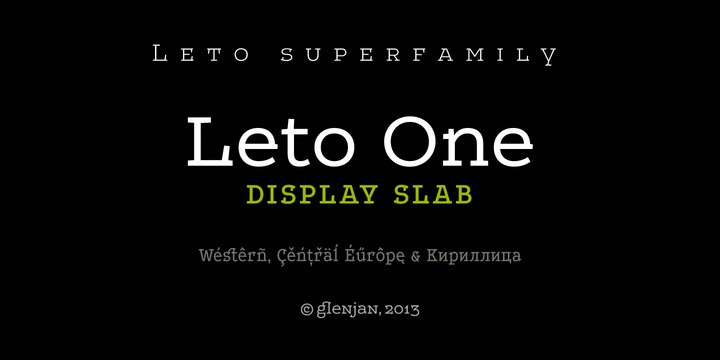
Leto One Font
Leto One Font is perfect for luxury brand logos, premium product packaging, high-end magazine titles, exclusive event invitations, boutique signage, sophisticated web headers, elegant business cards, upscale restaurant branding, designer portfolio layouts, and refined editorial headlines.
What makes Leto One Font so exciting is its extraordinary ability to embody singular excellence and premium quality through meticulously crafted letterforms that represent the pinnacle of typographic refinement. This distinguished display typeface captures the essence of exclusivity and sophisticated taste with characters that seem to radiate confidence and understated luxury. The font's refined design elements perfectly balance boldness with elegance, creating a powerful tool that communicates authority, prestige, and uncompromising quality, making it an indispensable choice for brands and projects that demand nothing less than typographic perfection.
Leto One Font comes in multiple font families including Regular, Bold, Light, Italic, Bold Italic, Condensed, Extended, and Display variations. Each family member maintains the core premium characteristics while offering different sophistication levels and stylistic approaches to suit various luxury design requirements.
The Leto One Font Free Download offers designers an incredible opportunity to incorporate unparalleled typographic excellence into their most prestigious projects. This remarkable typeface distinguishes itself through its unique ability to communicate themes of exclusivity, premium quality, and sophisticated leadership. Whether you're developing luxury brand identities, creating high-end product presentations, or designing exclusive event materials, this font ensures your message conveys the exceptional standards and refined taste that discerning audiences expect.
The singular attention to detail in Leto One Font makes it particularly suitable for premium markets where every design element must reflect the highest standards of quality and sophistication. Its commanding presence works exceptionally well in large display applications where the refined letterforms can create maximum impact while maintaining the elegant restraint that luxury brands require.
Luxury design professionals recognize how Leto One Font transforms ordinary text into powerful statements of premium positioning and brand authority. The typeface's exquisite character set includes special luxury symbols and decorative elements that enhance the overall sophisticated atmosphere of any high-end design project.
For creative professionals serving luxury brands, premium products, and exclusive markets, Leto One Font serves as the ultimate weapon for creating memorable visual identities that capture the essence of singular excellence and uncompromising quality that defines truly exceptional brands in competitive luxury markets.